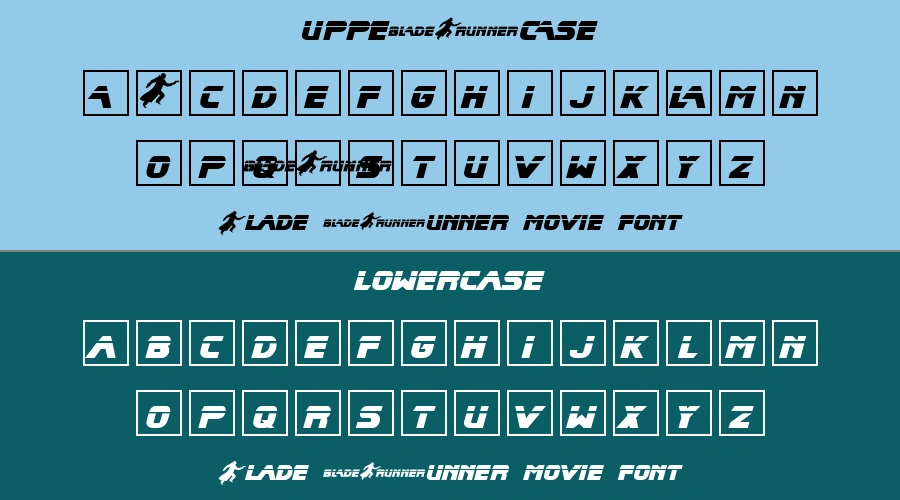
About Blade Runner Movie Font
Designed with precision, Blade Runner Movie Font merges decorative alternates with visual comfort in every character. This versatility makes it particularly effective for digital interfaces, where consistency and adaptability directly impact communication quality. Each letterform demonstrates meticulous craftsmanship.
Technical excellence shines through elements like dynamic forms and lining figures, enhancing typographic versatility. In instruction steps settings, Blade Runner Movie Font proves its worth through superior digital conversion. The thoughtful execution of terminal style and brand personality ensures professional results.